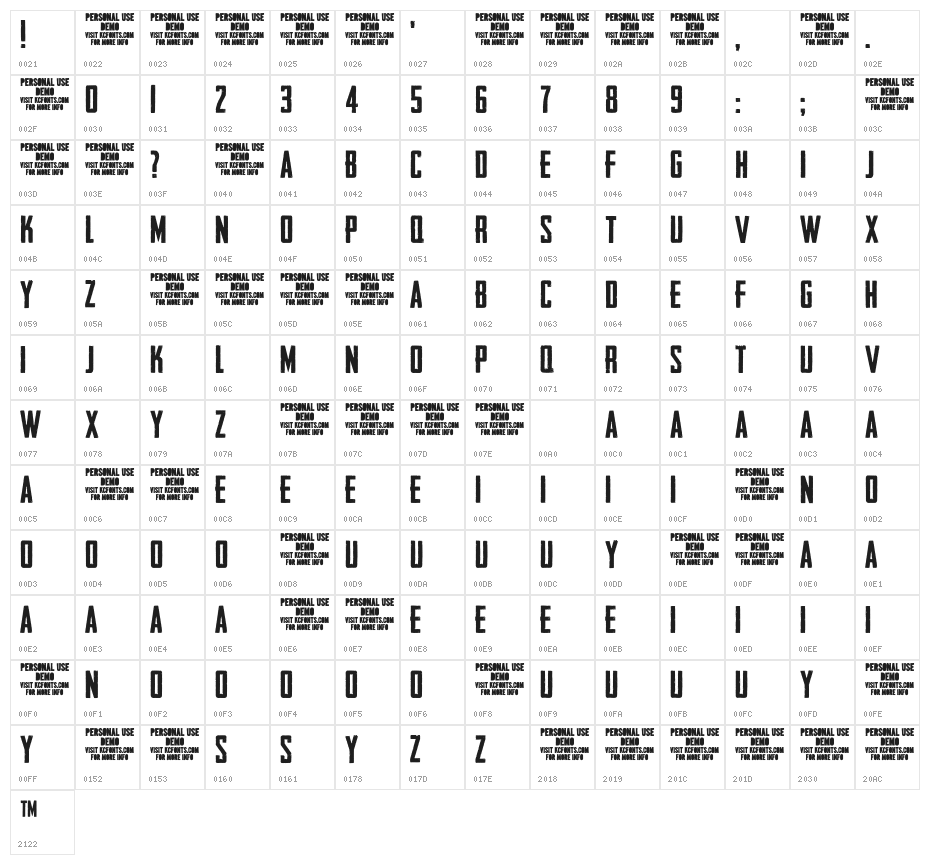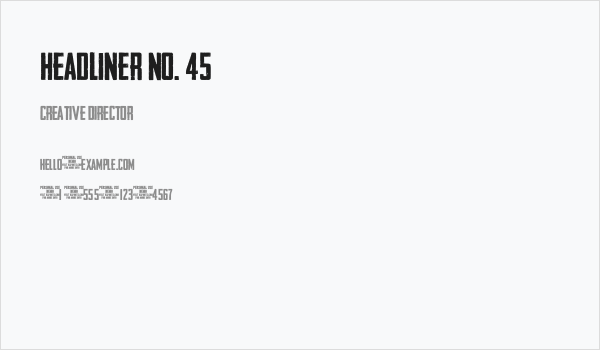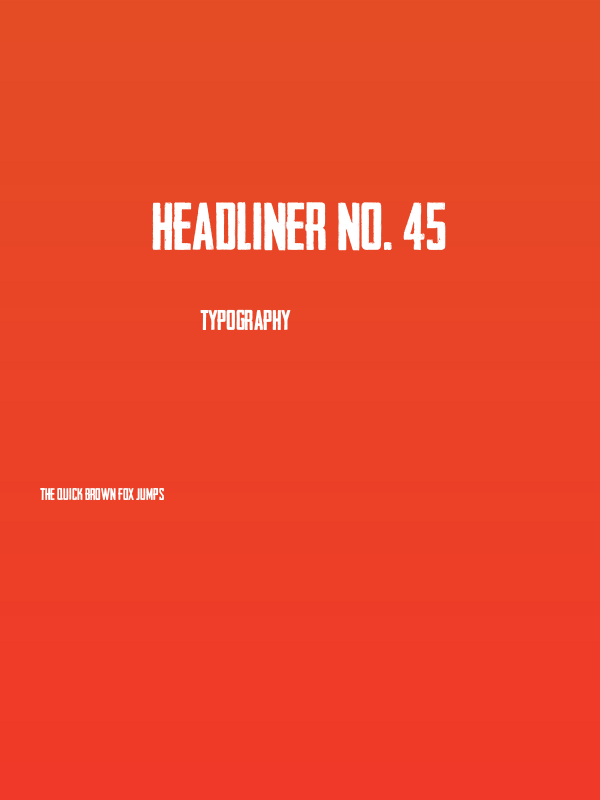
Headliner No. 45 Font
Headliner No. 45 Description
This font features a bold and rugged style with a distressed texture, giving it a vintage and industrial feel. The characters are tall and narrow, with a strong presence that makes them ideal for impactful headlines. The uppercase letters are uniform in height, while the numbers maintain the same boldness and texture. The font's rough edges and worn appearance add character and a sense of history, making it suitable for projects that require a gritty or retro aesthetic.
| Proposed Projects | Ideal for posters, album covers, branding for vintage or industrial-themed products, and any design needing a bold, gritty look. |